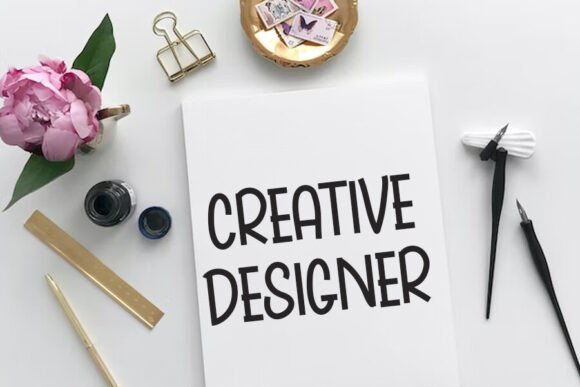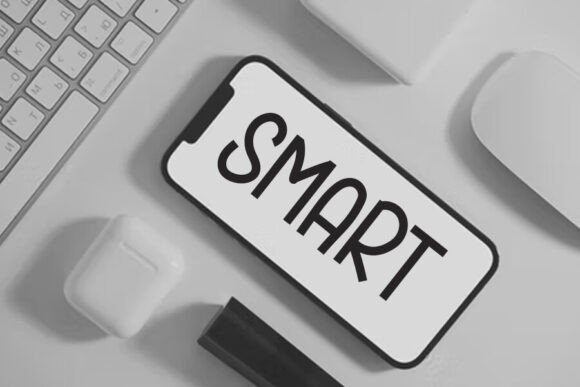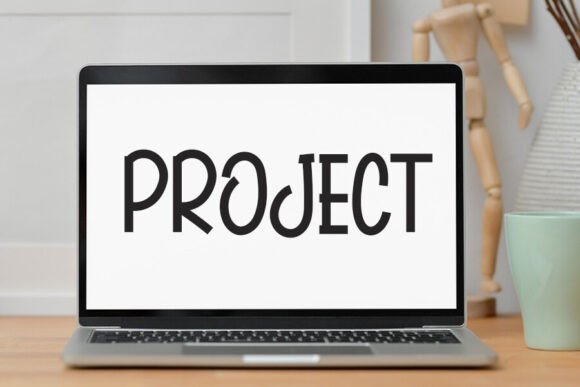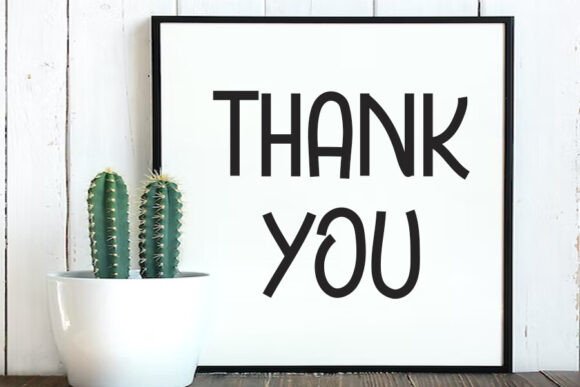
Elevate Your Designs with the Elegant ‘Designer This’ Font
Have you ever been in the middle of a design project, and suddenly, you’re stuck on finding the perfect font? I recall a recent experience where I was working on a wedding invitation design, and my client specifically asked for something “elegant yet modern.” After hours of browsing through font libraries, I stumbled upon the ‘Designer This’ font. It was love at first sight! This beautifully crafted, minimalist typeface has since become a staple in my design toolkit, and I’m excited to share its awesomeness with you.
An Honest Review of ‘Designer This’
- ✨ Elegant Minimalism: ‘Designer This’ strikes the perfect balance between simplicity and uniqueness, making it versatile for various design projects.
- ✅ High Versatility: From YouTube banners and cover logos to wedding invitations and ID cards, this font adapts seamlessly to different design needs.
- 💡 Innovative OpenType Features: The font comes with advanced OpenType features, including stylistic alternates and glyphs, allowing for creative freedom and customization.
While ‘Designer This’ is an excellent font, there are a few minor considerations:
- ⚠️ Limited Use in Body Text: Due to its elegant and somewhat delicate design, ‘Designer This’ might not be the best choice for lengthy body text. It’s perfect for headlines, titles, and short paragraphs.
The Inspiration Behind ‘Designer This’
‘Designer This’ was crafted with the modern designer in mind. Its creator aimed to produce a font that embodies elegance and freshness, perfect for those looking to elevate their designs. The inspiration came from a desire to merge simplicity with a unique touch, making it suitable for a wide range of creative projects.
Q: Is ‘Designer This’ suitable for body text?
A: While ‘Designer This’ is elegant and versatile, it’s primarily designed for titles, headings, and short paragraphs. For lengthy body text, consider a font with better readability.
Q: Does ‘Designer This’ support OpenType features?
A: Yes, ‘Designer This’ comes with advanced OpenType features, including stylistic alternates and glyphs, allowing for creative customization in compatible software.